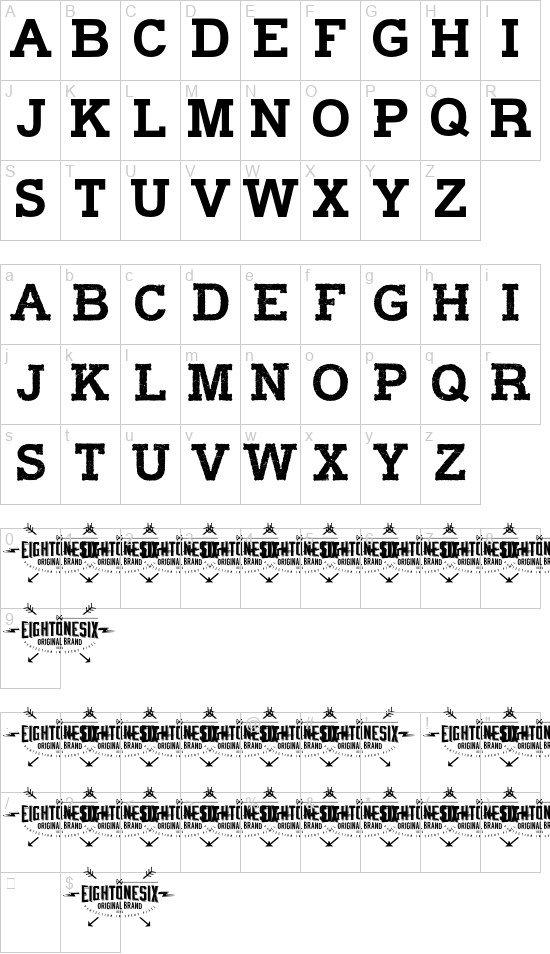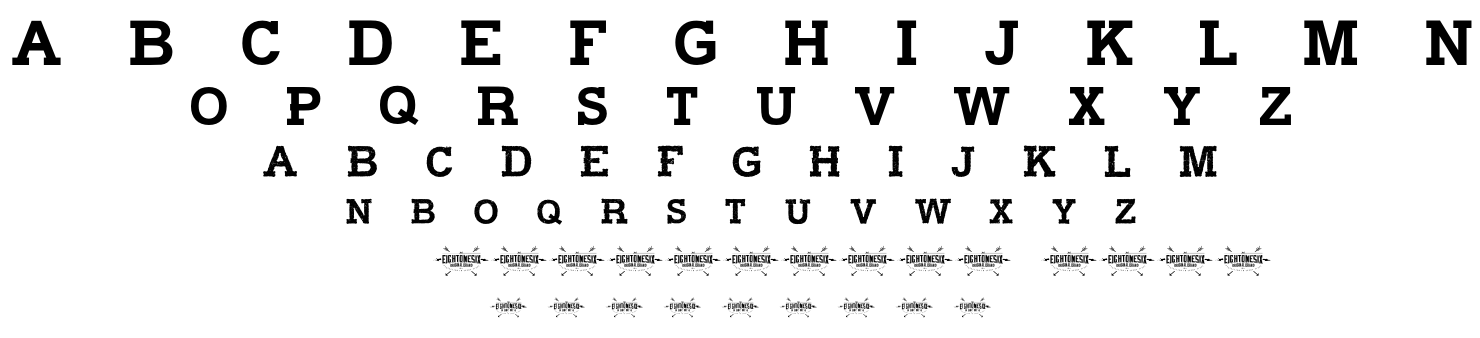
Looks like it is hand crafted but it’s a digital typeface. DERKON designed by eightonesix.net , lets you turn type into an impressive and beautiful piece of work. The irregular, hand-made look adds a real human touch to things and comes along with a lot of cool details.